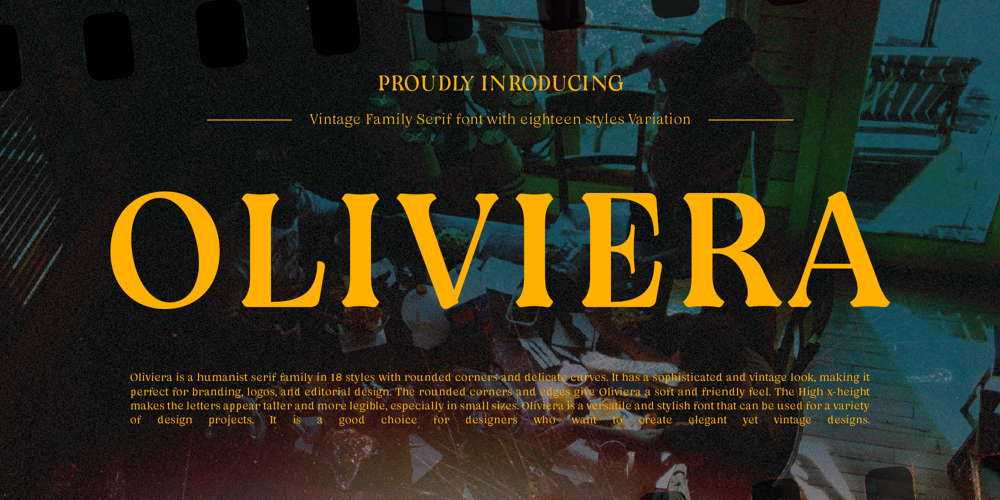
Oliviera Font Family was designed by Dede Kurniawan and published by Creatifont Studio. Oliviera contains 18 styles and family package options. Oliviera – is a humanist serif family in 18 styles with rounded corners and delicate curves. It has a sophisticated and vintage look, making it perfect for branding, logos, and editorial design. The rounded corners and edges give Oliviera a soft and friendly feel. The High x-height makes the letters appear taller and more legible, especially in small sizes. Oliviera is a versatile and stylish font that can be used for a variety of design projects. It is a good choice for designers who want to create elegant yet vintage designs.A SUMMARY OF WHAT’S INCLUDED:- Standard Character A-Z, a-z, 0-9, Punctuation & symbols- 18 Styles (Thin, Extra Light, Light, Regular, Medium, Semibold, Bold, Extra Bold, Black) with Italic in each styles- Multilingual Support- Works on PC & Mac- Simple installation- Accessible in Adobe Creative Suite (Ai, Ps, Id, etc.) even work on Microsoft Word.- PUA Encoded Characters – Fully accessible without additional design software.SOFTWARE REQUIREMENTS: Most software readily supports the regular fonts within the package — To unlock the full potential of the extensive collection of standard ligatures (custom connected letters) found in the script font, you can use any software with OpenType font compatibility.To generate all ligatures, please go open Adobe Illustrator – Type – Glyphs.Please drop me a message if you have trouble regarding either installing or using this font.🌟If you come across any issues or notice anything we might have overlooked while using this product, please feel free to reach out to us. We greatly value your feedback as it helps us enhance and refine our products. Thank you!